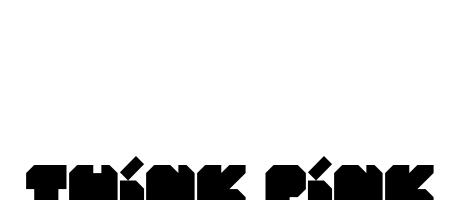
Think Pink
Think Pink is a bold, geometric sans-serif typeface. Its chunky, almost block-like letterforms possess a strong, slightly aggressive quality. The sharp angles and abrupt transitions between strokes give it a modern, almost futuristic feel, hinting at a retro-futuristic or 80s vibe. The overall effect is powerful and attention-grabbing.